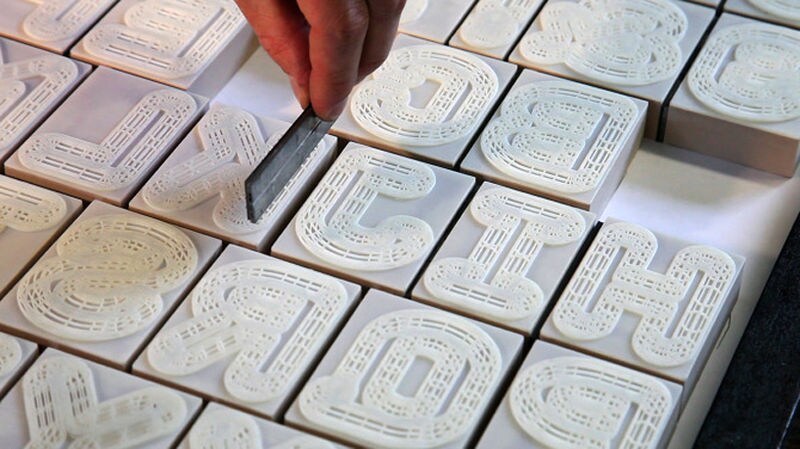
It seems like one can produce anything with a 3D printer these days, and this letterpress font is no different. Premiering at a graphic design festival in London at the V & A museum, the A23D font has an interesting texture and a distinct look.
According to DesignBoom, "the composition connects the newest and oldest forms of press-work by being fabricated using 3D-print technology and pressed in a traditional print studio." Because of this the design received much attention during the festival in London, and for good reason. With the help of the arts council for funding, three separate studios worked together to produce this letterpress font, and merge older forms with the new. The result is an intriguing design that has a textured touch and memorable appeal. Photo Credits: designboom, vam.ac.uk
3D-Printed Letterpress
The A23D Letterpress Font Premiered at the London Design Festival